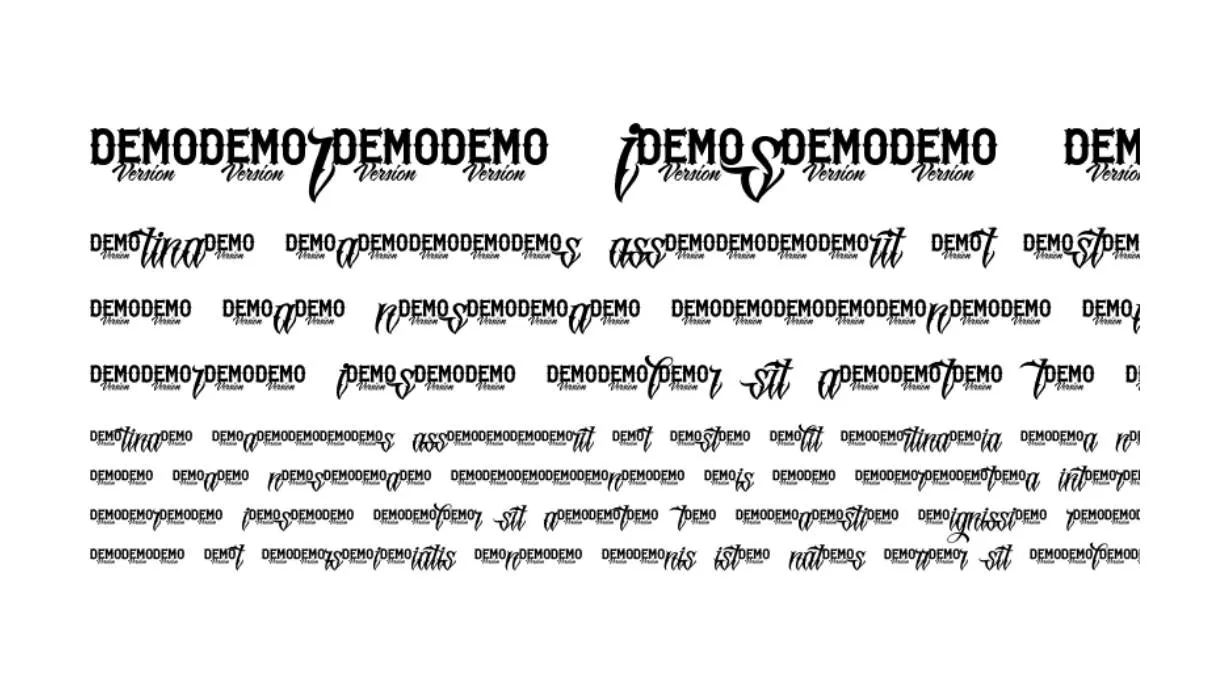
The Original Gangsta Regular font brings a bold and edgy vibe to your text. With its strong, robust letters, it makes a statement in your design.
This font is perfect for projects that require a touch of attitude, like music posters or urban-themed graphics. The letters have a certain swagger, adding a rebellious and cool element to your words. If you want your text to stand out and grab attention, Original Gangsta Regular font is the way to go.
| Style | Gothic |